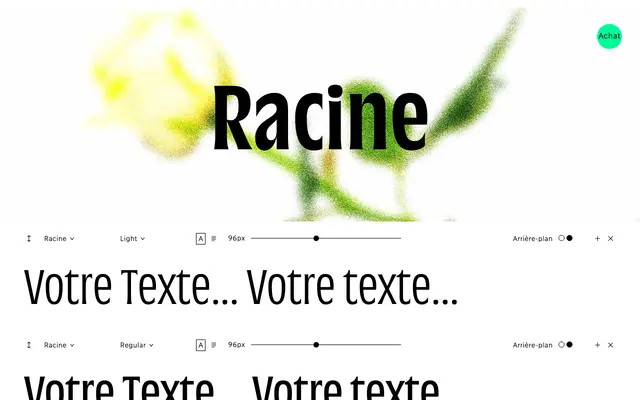
Racine
Coppers and Brasses · Étienne Aubert Bonn · 2022
Racine specimen from Coppers and Brasses
A display serif by Étienne Aubert Bonn with sharp, spine-like serifs that cut against the softness of its organic curves, creating a characterful texture at tight leading.
Designed by Étienne Aubert Bonn at Coppers and Brasses, Racine pairs organic, rounded letterforms with unexpectedly sharp serifs that give the family a spiky, dynamic quality. Characters are weighted towards the top, some appearing almost inverted, which generates an unusual visual rhythm across a line of text. The large x-height and relatively low contrast make it well suited to display use at tight leading, while the generous ink traps at joins add brightness in heavier weights.
Racine has subtle but sharp serifs balanced against organic curves, low contrast, and a very large x-height, all characteristics of a display-oriented serif designed for tight setting at larger sizes.